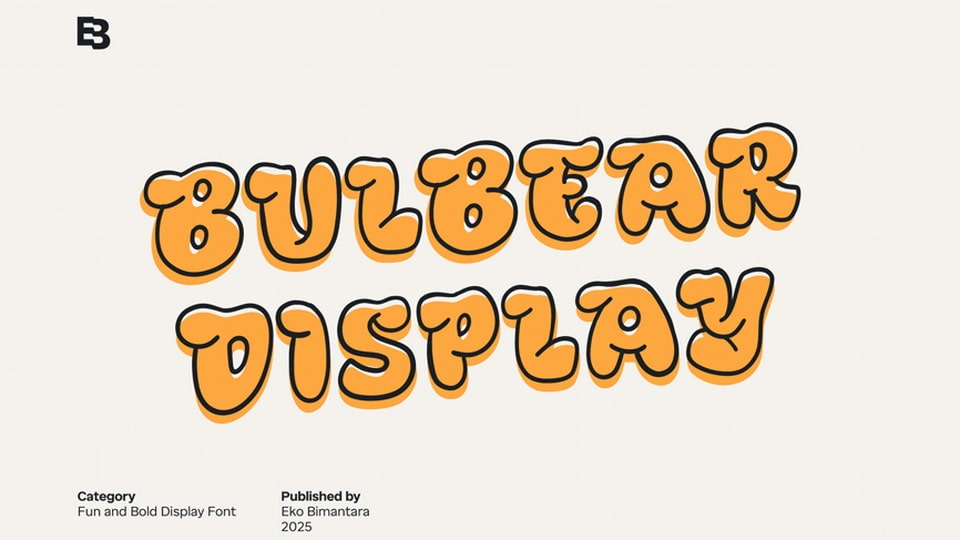
Download Bulbear font, a fun and bold display typeface that exudes energy and playfulness. With its bubbly, rounded letterforms, Bulbear font captures the essence of whimsy and charm.